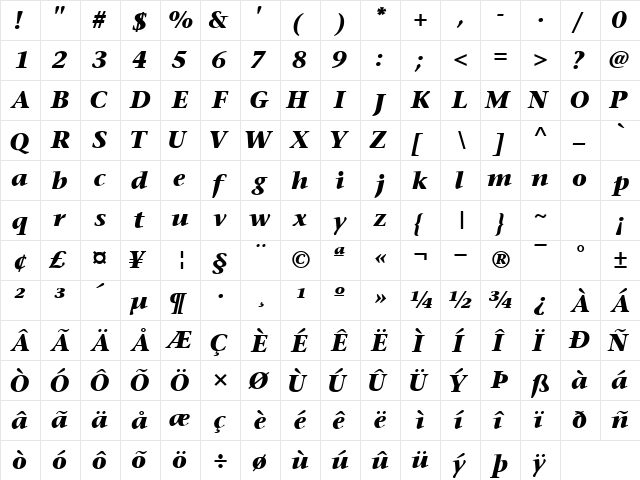
MesouranSerifBlackSSK Italic
Design Context for MesouranSerifBlackSSK Typeface
MesouranSerifBlackSSK brings classic typographic sensibility to the table — its serifs and measured letterforms reflect centuries of print heritage. The slanted form adds forward momentum and visual energy.
Pro Tip: Use MesouranSerifBlackSSK for editorial body copy and considered headline work. Pair with a neutral sans for UI elements or captions to create a classic hierarchy.